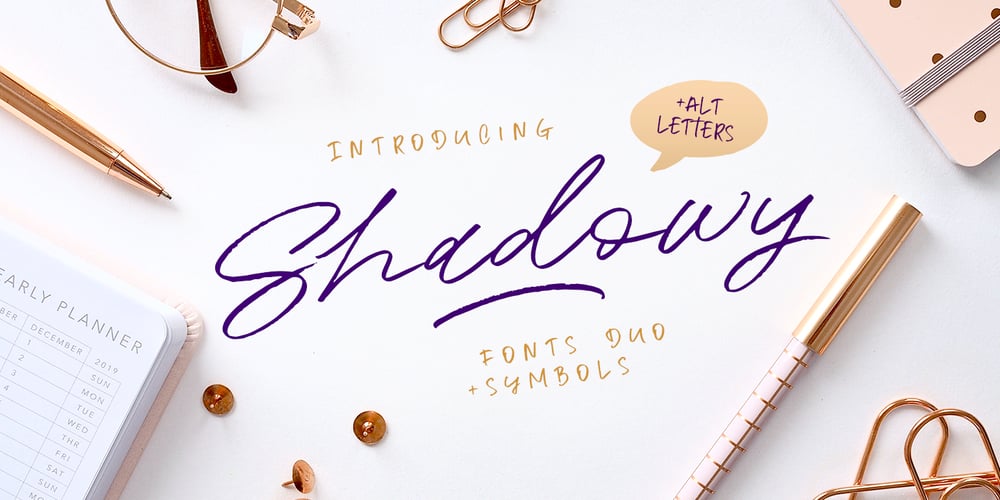
Shadowy
Shadowy font
Shadowy Font Family was designed by Anton Didenko and published by Kavoon. Shadowy contains 3 styles and family package options. Shadowy Script is modern calligraphy font. It is perfect for branding, cards, gorgeous logos, posters, wedding invitations, blog posts, social media, and more!